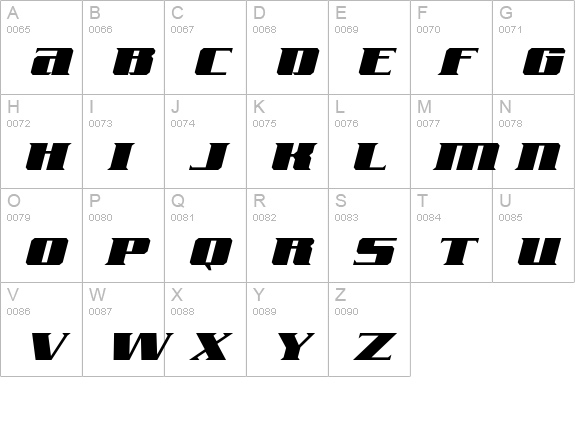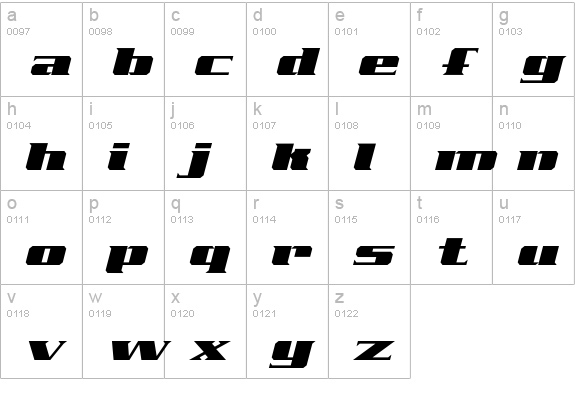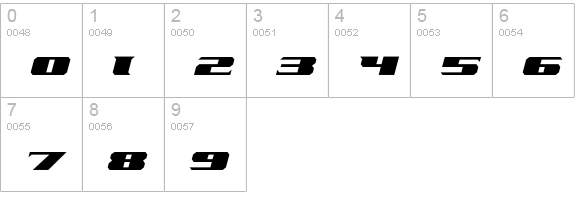
FreeLine-SerifCruiser Font Details
Introducing FreeLine-SerifCruiser font, a versatile and modern typeface that is perfect for adding a touch of elegance to your designs. This font features sleek serif letterforms with a unique twist, making it stand out from the crowd. Whether you're designing a logo, website, or print materials, FreeLine-SerifCruiser font will elevate your projects to the next level. One of the best things about FreeLine-SerifCruiser font is that it is completely free to download at FontsMarket.com. This means you can easily access this high-quality font without any cost, making it a valuable addition to your font library. With its clean lines and sophisticated style, FreeLine-SerifCruiser font is sure to become a go-to choice for all your design needs. Don't miss out on the opportunity to enhance your projects with the stunning FreeLine-SerifCruiser font. Download it today and start creating beautiful designs that make a lasting impression.